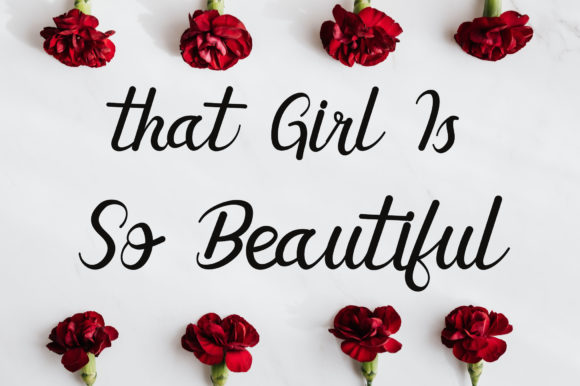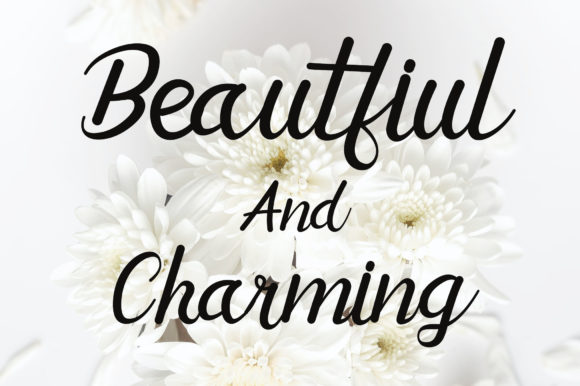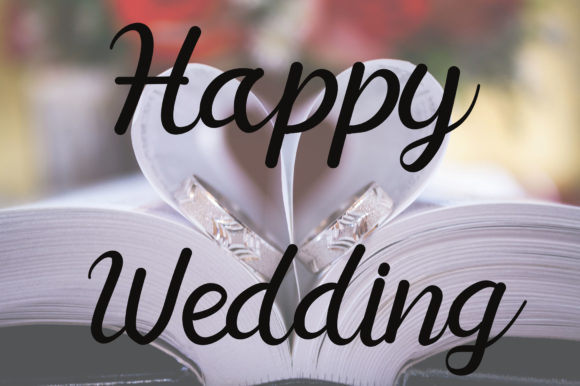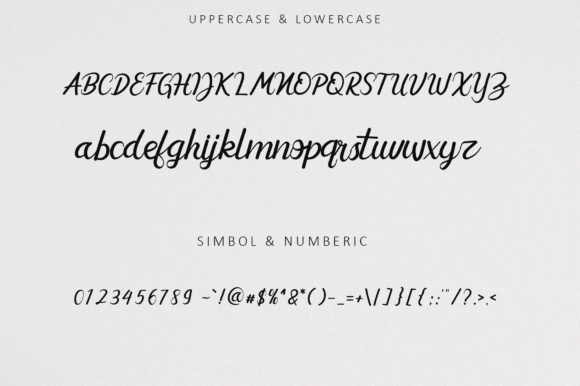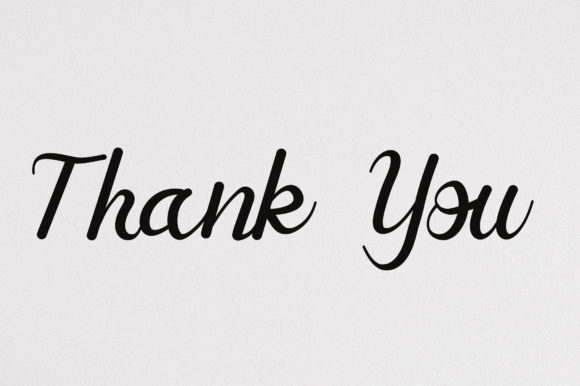
Introduction to Princiella Font
Have you ever been working on a creative project, pouring your heart and soul into it, and just needed that perfect finishing touch to make it truly stand out? You know, that one element that takes your design from good to exceptional? For many designers, this moment is what drives them to search for the perfect font. And if you’re one of them, you’re in luck! Introducing the Princiella Font, a beautiful and light handwritten font that adds a luxury spark to any design project.
As a valuable design resource, Princiella Font is perfect for creatives who want to elevate their work with high-quality typography. With its unique feel and stunning impact, this font is sure to make your designs shine. Plus, it’s available for free download, making it an accessible addition to any project. Whether you’re working on a branding project, a marketing campaign, or a personal creative venture, Princiella Font is a must-have for any designer looking to add a touch of sophistication to their work.
Key Features of Princiella Font
- High-quality design resource with a unique, elegant style suitable for creative projects.
- Designed with a modern aesthetic, the Princiella Font is perfect for use in logos, branding materials, and other design elements.
Honest Review: Princiella Font
As a designer, I’ve had the pleasure of working with numerous fonts, but the Princiella Font has caught my attention for its unique and elegant design. With a free download option available, this font has become a valuable addition to my design resource library.
The high-quality design of Princiella Font makes it perfect for creative projects that require a touch of sophistication. The transparent background allows for seamless integration with any design element, making it a versatile choice for various design applications.
- ✨ Elegant and unique design
- ✨ High-quality rendering
- ✨ Transparent background for easy integration
- ⚠️ Limited font size options
- ⚠️ May not be suitable for bold or loud designs
Overall, I’m impressed with the Princiella Font. Its elegant design and high-quality rendering make it a great choice for creative projects. While it has some limitations, I believe it’s a valuable addition to any designer’s library.